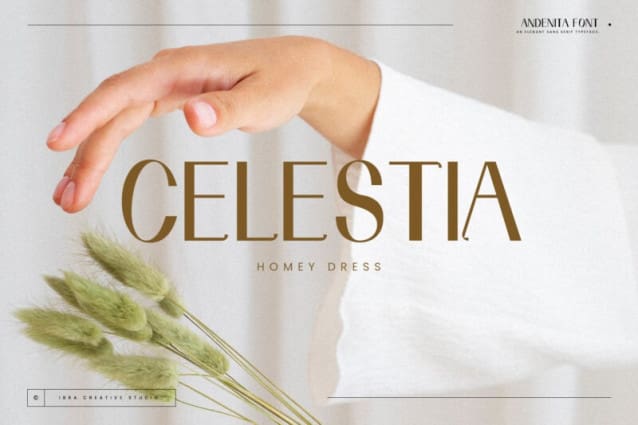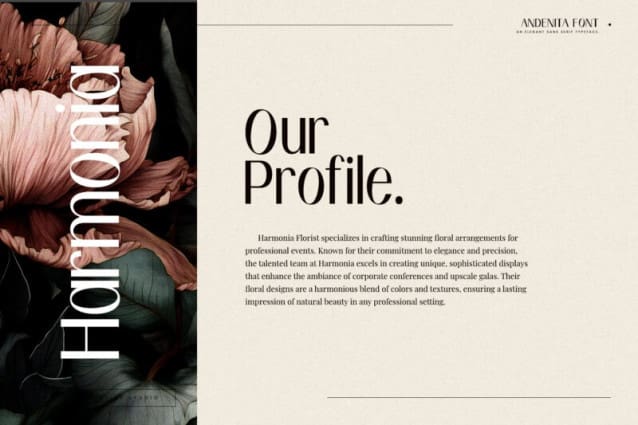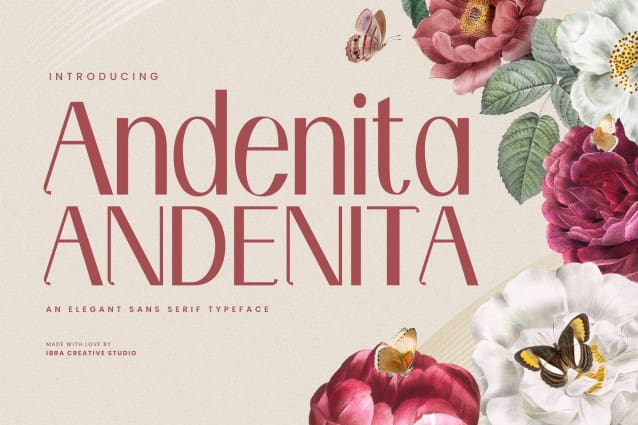
Andenita Font
Andenita Font, an elegant sans-serif typeface, effortlessly blends sophistication with modern simplicity. Its refined letterforms exude a timeless charm, featuring clean lines and balanced proportions that lend a sense of versatility to any design project. The typeface exhibits a harmonious combination of graceful curves and sharp edges, striking the perfect balance between formality and approachability. Andenita’s meticulously crafted characters convey a sense of refined aesthetics, making it an ideal choice for conveying a touch of class in branding, editorial design, or any application where a tasteful and contemporary sans-serif typeface is desired.
Andenita Font is perfect for branding projects, logo, wedding designs, social media posts, advertisements, product packaging, product designs, label, photography, watermark, invitation, stationery, game, fashion and any projects.